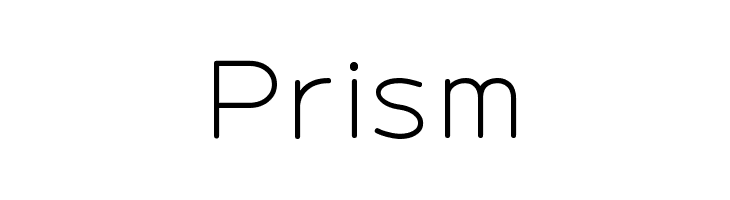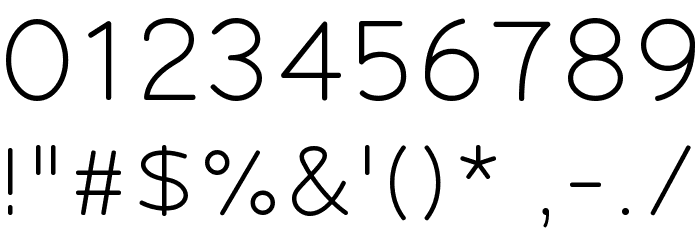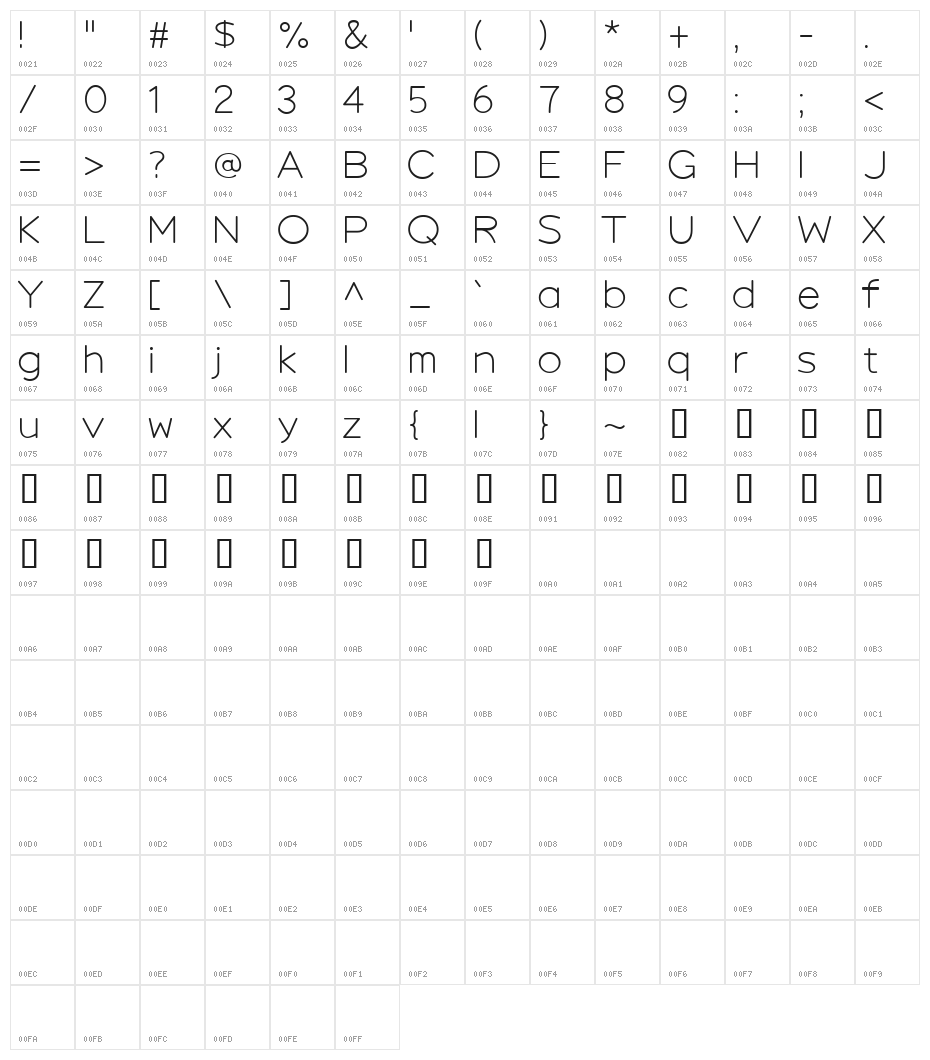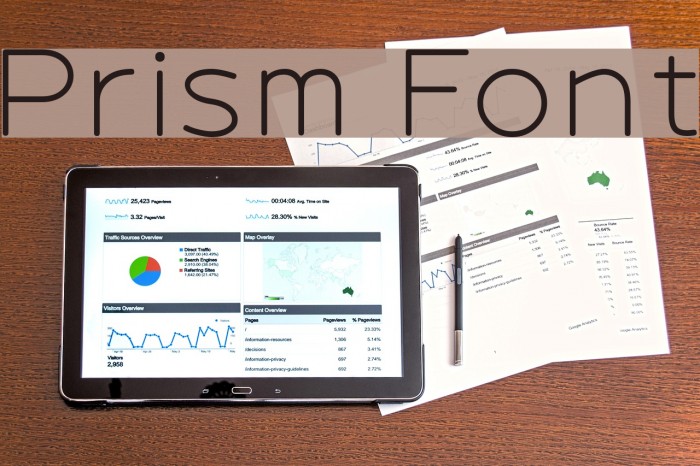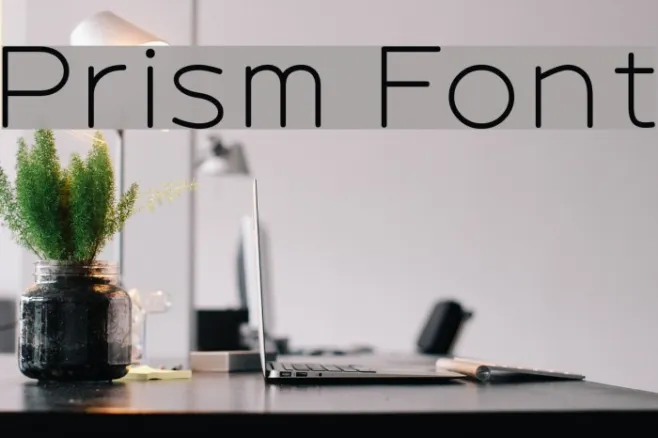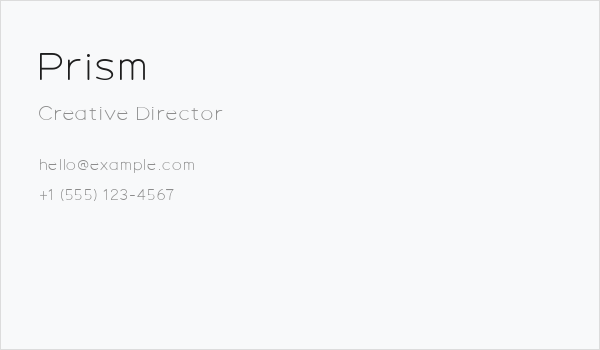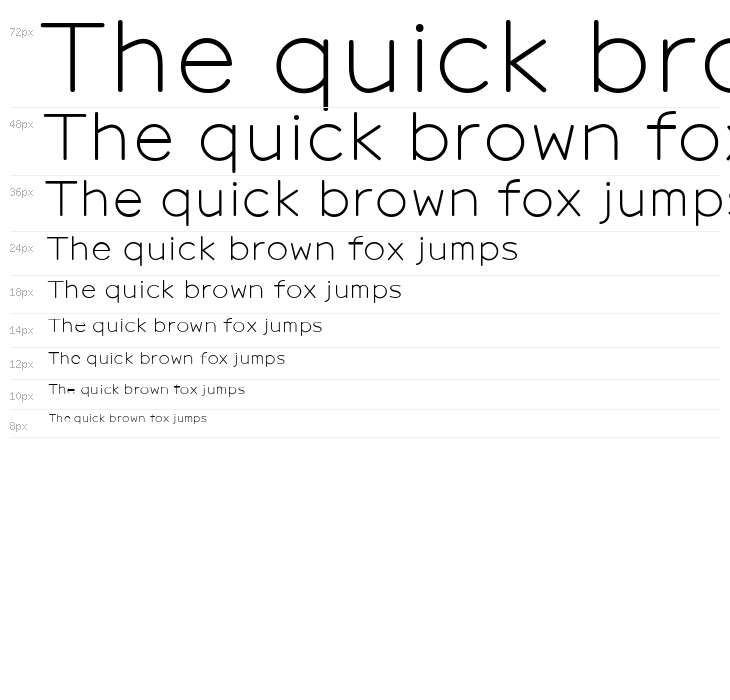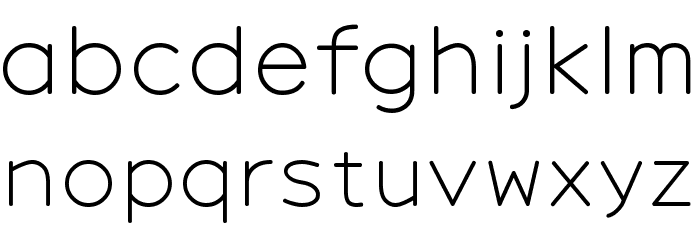
Prism Font
Prism Description
This font features a clean and modern design with a geometric sans-serif style. The characters are uniform in stroke width, providing a balanced and harmonious appearance. The uppercase letters are slightly taller than the lowercase, offering a clear distinction between the two. The numerals are straightforward and easy to read, making them suitable for various applications. The special characters are well-integrated, maintaining the overall aesthetic of the font. Its simplicity and clarity make it versatile for both digital and print media.
| Proposed Projects | Ideal for branding, web design, advertising, and editorial layouts. |